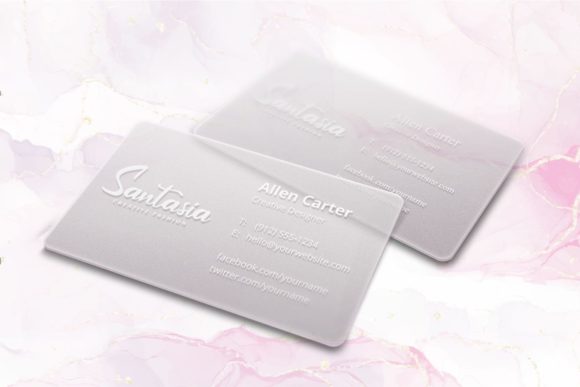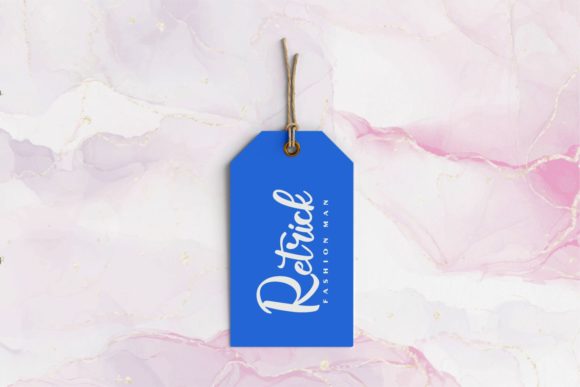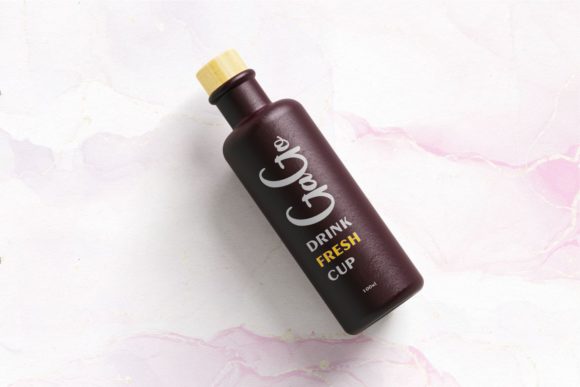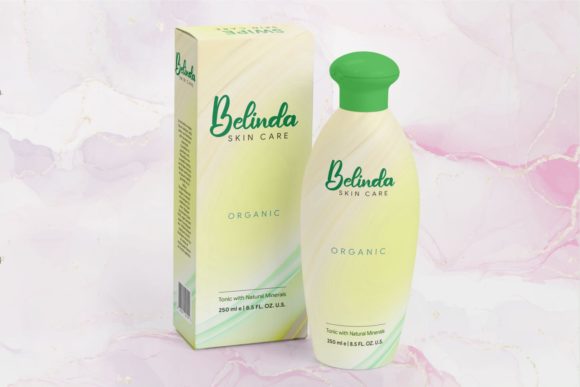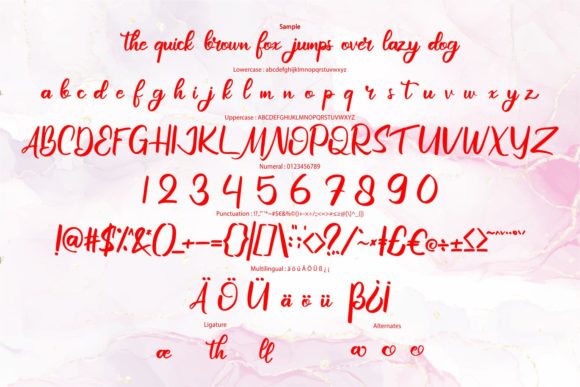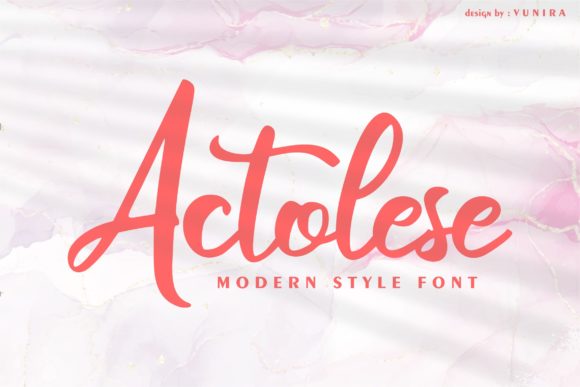
Introducing Actolese Font: The Elegant and Dainty Handwritten Font for Crafty Ideas
In the world of typography, fonts play a crucial role in conveying the tone and personality of a design. For crafty ideas, a font that exudes elegance and delicacy can make all the difference. This is where Actolese Font comes in – an exquisite handwritten font that features sweet and delicate swashes, perfect for adding a touch of sophistication to various design projects.
What is Actolese Font?
Actolese Font is an elegant and dainty handwritten font that boasts a unique and original look. Its sweet and delicate swashes add a touch of whimsy and romance, making it an ideal choice for designers and crafters looking to create beautiful and eye-catching designs. Whether you’re working on letterheads, titles, stationery, or any other crafty project, Actolese Font is sure to impress.
Key Features of Actolese Font
So, what makes Actolese Font stand out from the rest? Here are some of its key features:
- Elegant and Dainty Design: Actolese Font features a delicate and refined design that exudes elegance and sophistication.
- Sweet and Delicate Swashes: The font’s sweet and delicate swashes add a touch of whimsy and romance to any design.
- Handwritten Look: Actolese Font has a genuine handwritten look that adds a personal touch to any design.
- Versatile: The font is versatile and can be used for a wide range of design projects, from letterheads and titles to stationery and more.
Use Cases for Actolese Font
Actolese Font is perfect for a variety of design projects, including:
- Letterheads and Titles: Add a touch of elegance to your letterheads and titles with Actolese Font.
- Stationery: Create beautiful and eye-catching stationery with Actolese Font.
- Wedding Invitations: Make your wedding invitations extra special with Actolese Font’s delicate and elegant design.
- Branding and Packaging: Use Actolese Font to create unique and memorable branding and packaging designs.
Why Choose Actolese Font?
With so many fonts available, why choose Actolese Font? Here are just a few reasons:
- Unique and Original Design: Actolese Font features a unique and original design that will set your designs apart from the rest.
- Elegant and Refined: The font’s elegant and refined design makes it perfect for designers and crafters looking to create sophisticated designs.
Tips for Using Actolese Font
Here are a few tips for using Actolese Font:
- Pair with Other Fonts: Pair Actolese Font with other fonts to create a unique and eye-catching design.
- Experiment with Sizes and Colors: Experiment with different sizes and colors to find the perfect combination for your design.
- Use for Headings and Titles: Use Actolese Font for headings and titles to add a touch of elegance to your design.
In conclusion, Actolese Font is a beautiful and elegant handwritten font that features sweet and delicate swashes. Its unique and original design makes it perfect for designers and crafters looking to create sophisticated and eye-catching designs. Whether you’re working on letterheads, titles, stationery, or any other crafty project, Actolese Font is sure to impress. So why wait? Download Actolese Font today and start creating stunning designs!